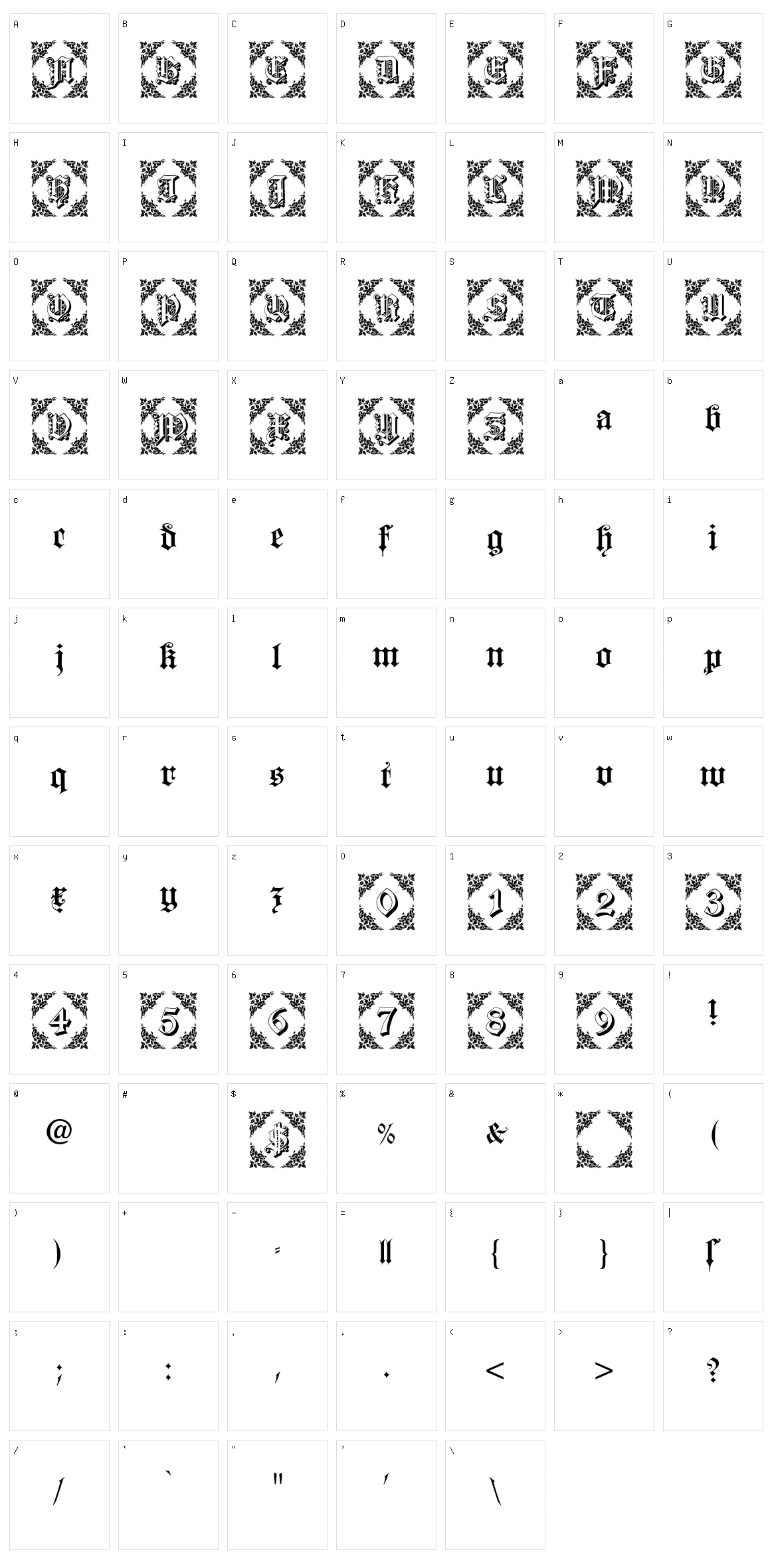
The free font Dearest Friend is carefully designed by West Wind Fonts, showcasing a thoughtful balance of creativity and usability and belongs to the Gothic font family. When you download the ZIP file, it contains only 183.51 KB of font files, making it lightweight and quick to download. Please review the license details below to understand permitted usage and distribution rights. If license information is not available, we recommend using this font for personal projects only or contacting the author directly for commercial usage permissions.